Choosing the best fonts for pre wedding invitations is one of the most important steps in creating a romantic and memorable design. Typography plays a key role in expressing love, elegance, and personality in pre wedding invitations and photo albums.
A well-chosen font can make your design feel timeless and emotional. On the other hand, the wrong font can reduce the beauty and impact of your message. Therefore, selecting the right typography is essential for both invitations and photo album layouts.
In this article, we will explore the best fonts for pre wedding invitations, their characteristics, and tips for using them effectively in your designs.
Why Best Fonts for Pre Wedding Invitations Matter
Understanding the best fonts for pre wedding invitations helps designers create visuals that feel meaningful and elegant. Pre wedding designs are not just informational; they are emotional.
Good typography can:
- Create a romantic atmosphere
- Enhance visual storytelling
- Make designs look premium
- Improve readability
Moreover, typography becomes a central design element in invitations, making it essential to choose carefully.
Characteristics of the Best Fonts for Pre Wedding Invitations
Before choosing fonts, it is important to understand their key characteristics.
1. Elegant and Flowing Style
Pre wedding fonts often include script or serif styles that feel graceful and refined.
2. Soft and Romantic Feel
Smooth curves and delicate lines help create a romantic mood.
3. Readable and Balanced
Even decorative fonts must remain easy to read, especially for names and event details.
4. Timeless Design
Classic fonts ensure your design remains beautiful for years.
Best Fonts for Pre Wedding Invitations and Photo Albums
Here are some of the best fonts for pre wedding invitations to elevate your design.
Kefhila
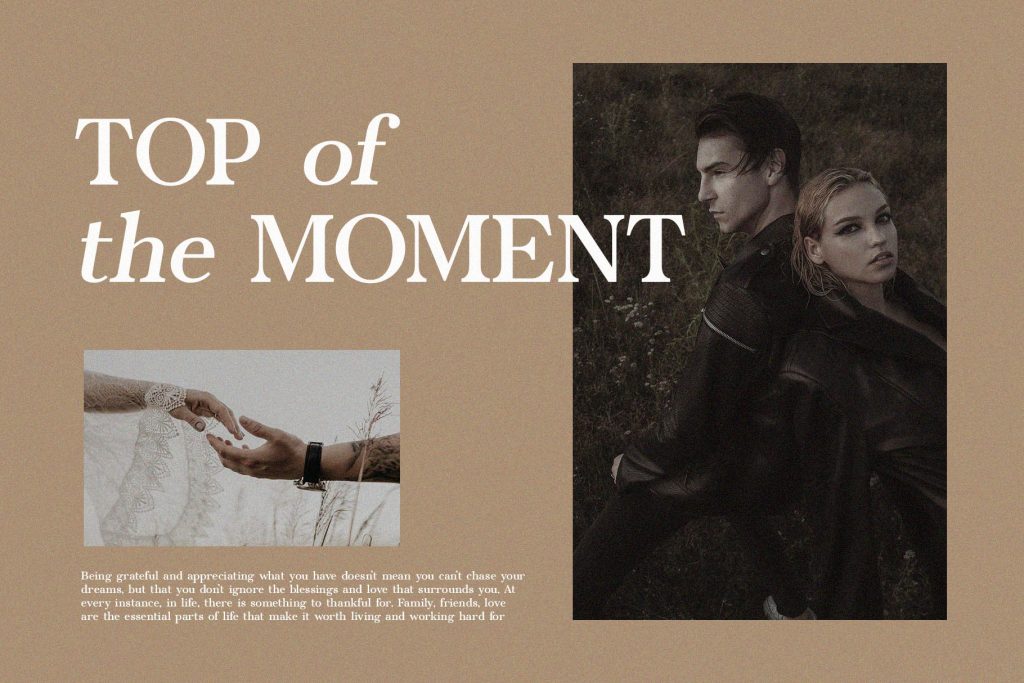
Kefhila is a feminine indie serif font with unique organic letterforms, blend curves, and angles for a sophisticated yet whimsical design.
Best for:
- Visual Identity Projects
- Invitation cards
- Romantic quotes
Kefhila brings a sophisticated yet whimsical touch to any design
Yasmen
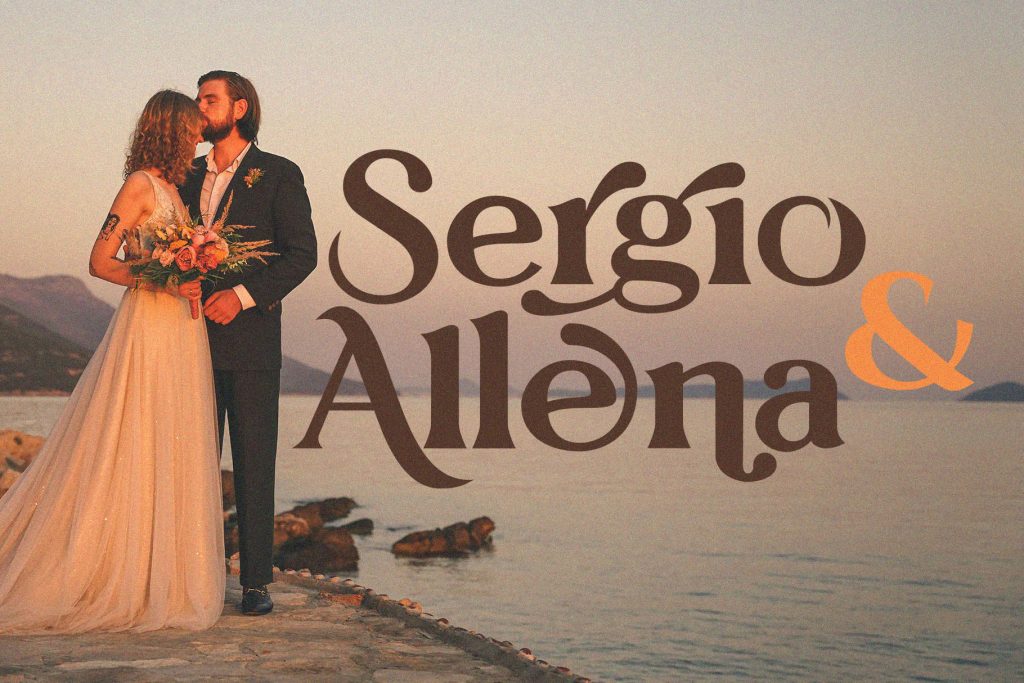
Yasmen is a modern ligature serif font with beautiful characters
Best for:
- Names of the couple
- Photo captions
- Pre wedding branding
Yasmen elevates your designs with its refined aesthetic
Baigont
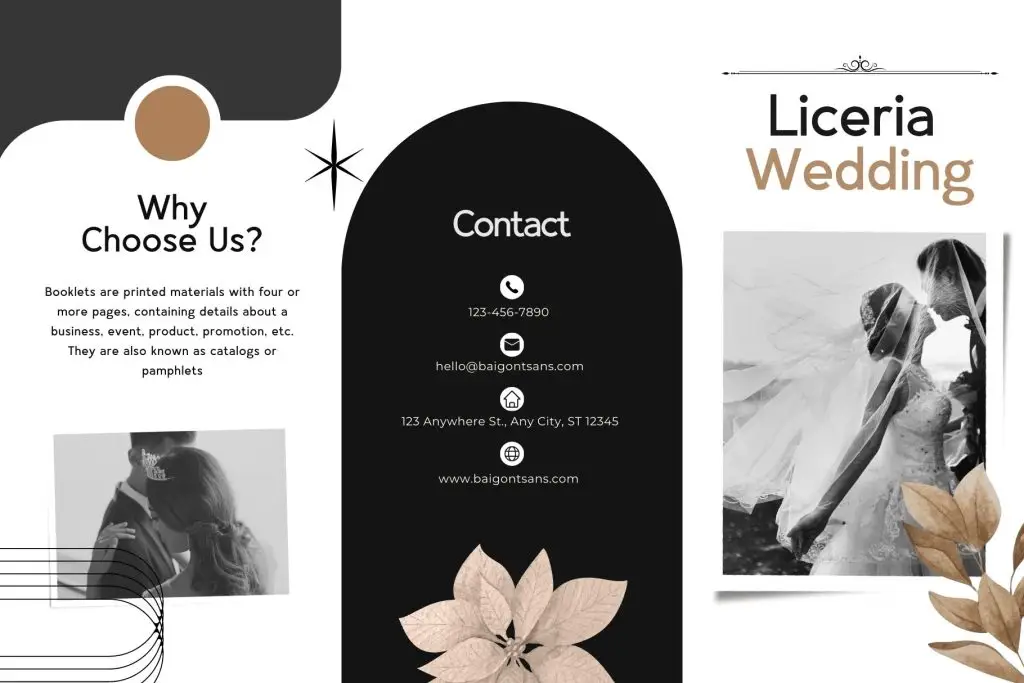
Baigont is a beautiful series of letters that converges to elevate your writing experience.
Best for:
- Main headings
- Formal invitations
- Album titles
While exuding a modern feel, the Baigont font retains a timeless elegance, making it a perfect choice for a wide range of writing needs.
Bergavick
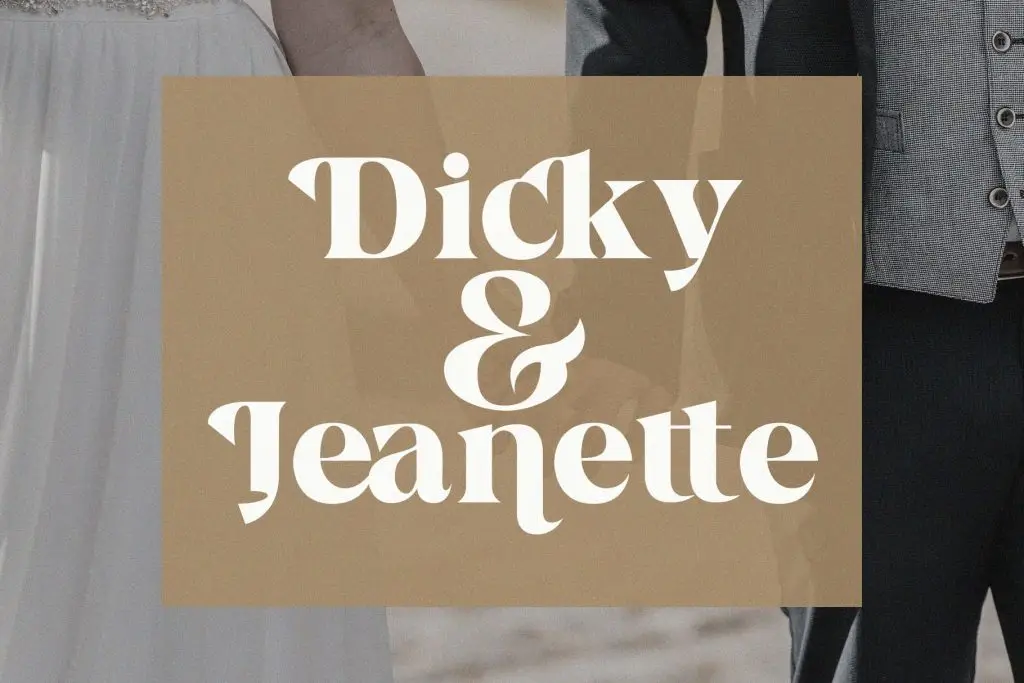
Bergavick is an elegant ligature serif font that brings modern sophistication and timeless charm.
Best for:
- Creative invitations
- Classy Designs
- Elegant Creations
Bergavick strikes the perfect balance between modern design and classic elegance.
Sterla
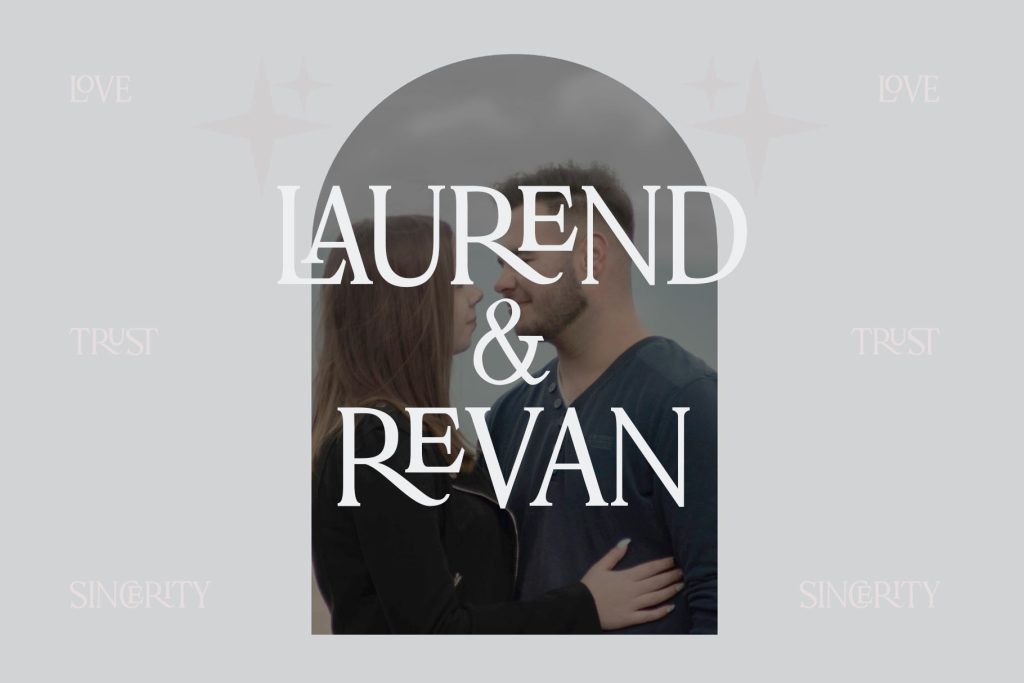
Sterla is a bold and stylish serif font with a trendy, authentic vibe.
Best for:
- Body text
- Photo album descriptions
- Supporting content
Sterla ensures that your projects will have a touch of flair and personality
Monna Kalingga
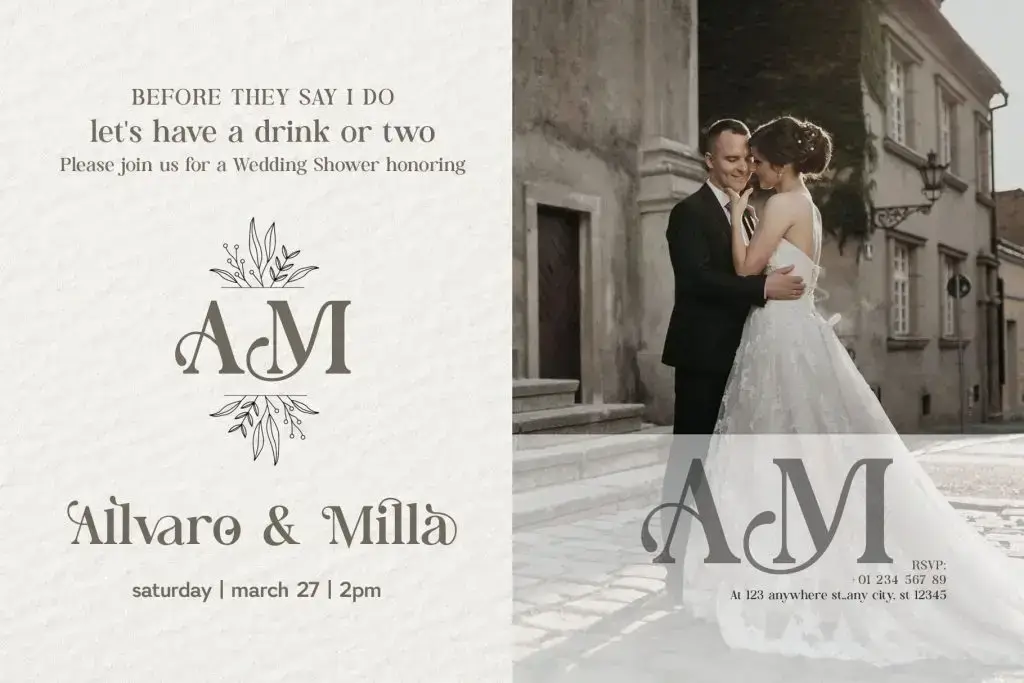
Monna Kalingga is a decorative serif font with elegant letters and ligatures
Best for:
- Formal invitations
- Fashionable creations
- Traditional weddings
This font transforms your work into visually captivating pieces.
The Braga
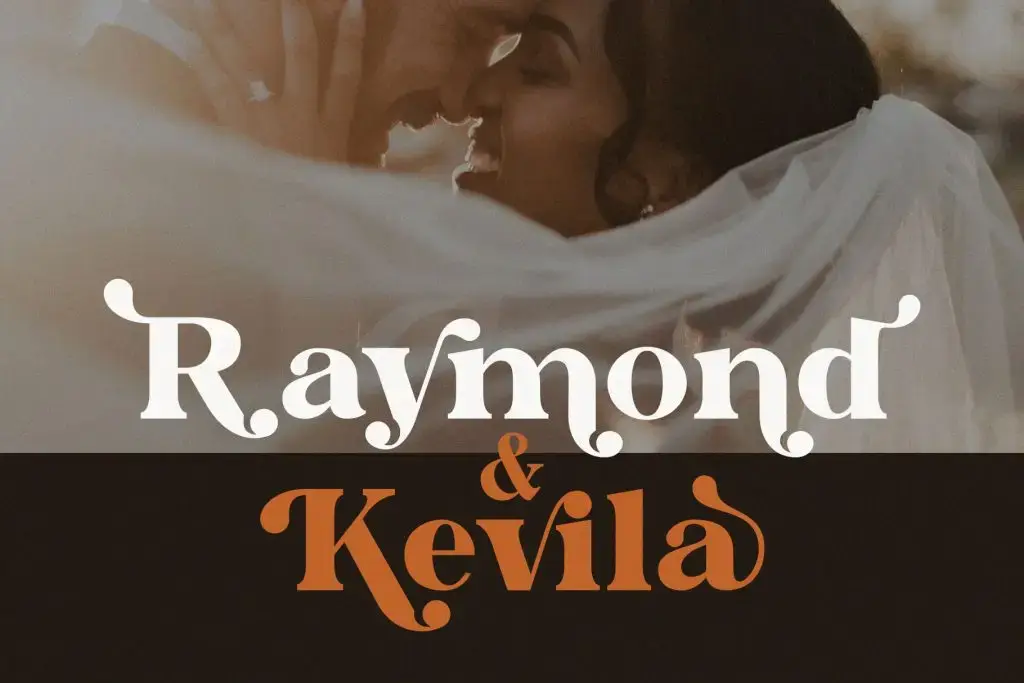
The Braga is a modern serif font that combines contemporary elegance with timeless appeal.
Best for:
- Invitation Card Designs
- Album layouts
- Modern Designs
The Braga ensures your typography is always stylish, refined, and visually striking.
Conclusion
Choosing the best fonts for pre wedding invitations is essential for creating beautiful and meaningful designs. Fonts like Kefhila, Yasmen, Baigont, Bergavick, Sterla, Monna Kalingga, and The Braga offer a variety of styles that suit different wedding themes.
Moreover, by combining fonts thoughtfully and focusing on readability, you can create designs that are both elegant and memorable. Typography plays a powerful role in storytelling, making your pre wedding invitations and photo albums truly special.